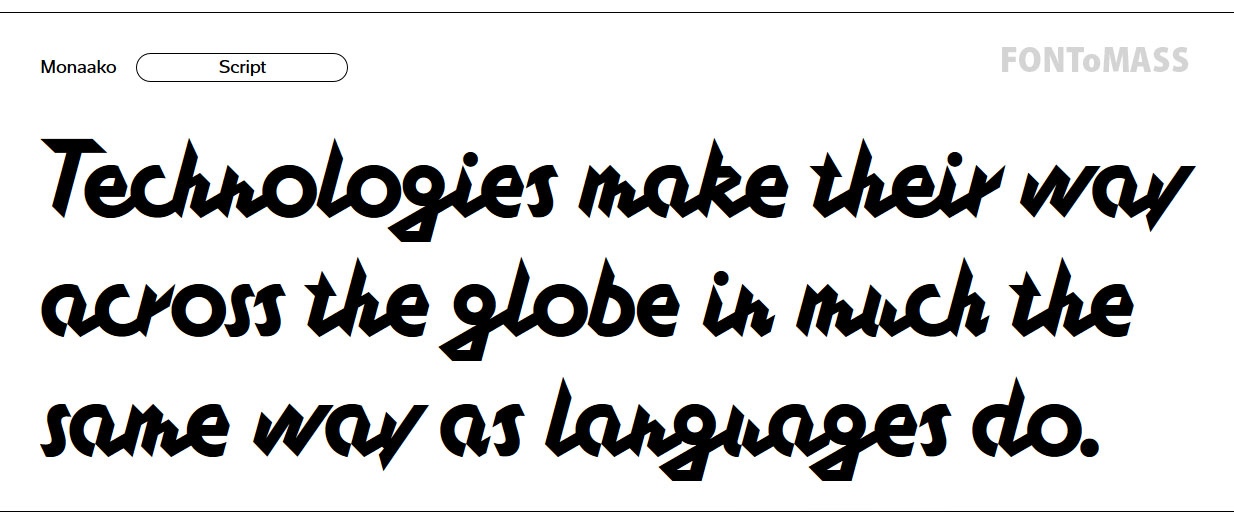
Monaako Font
Monaako Font is perfect for luxury travel branding, upscale hospitality marketing, premium lifestyle magazines, sophisticated fashion campaigns, exclusive yacht club signage, high-end resort communications, elegant spa branding, luxury automotive advertising, and refined jewelry packaging.
What makes Monaako Font exciting is its sophisticated European elegance combined with contemporary refinement that evokes the glamour and exclusivity of the French Riviera. The font's sleek letterforms and polished character details deliver unmistakable luxury appeal while maintaining exceptional readability, making it the perfect choice for brands targeting affluent markets where prestige and sophistication drive consumer preferences.
Monaako Font family includes multiple weights from Thin to Black, along with matching italic variations and stylistic alternates, providing comprehensive design solutions for creating cohesive luxury brand systems and premium marketing communications across diverse applications.
The carefully balanced letterforms ensure optimal performance across all premium marketing channels, from glossy print advertisements to elegant digital presentations. Advanced typographic features support international luxury markets with extensive language coverage.
Monaako Font sets new standards in the luxury typography category through its unique ability to communicate exclusivity, sophistication, and aspirational lifestyle values. This exceptional typeface doesn't just display text—it creates desire and establishes premium brand positioning in competitive luxury markets.